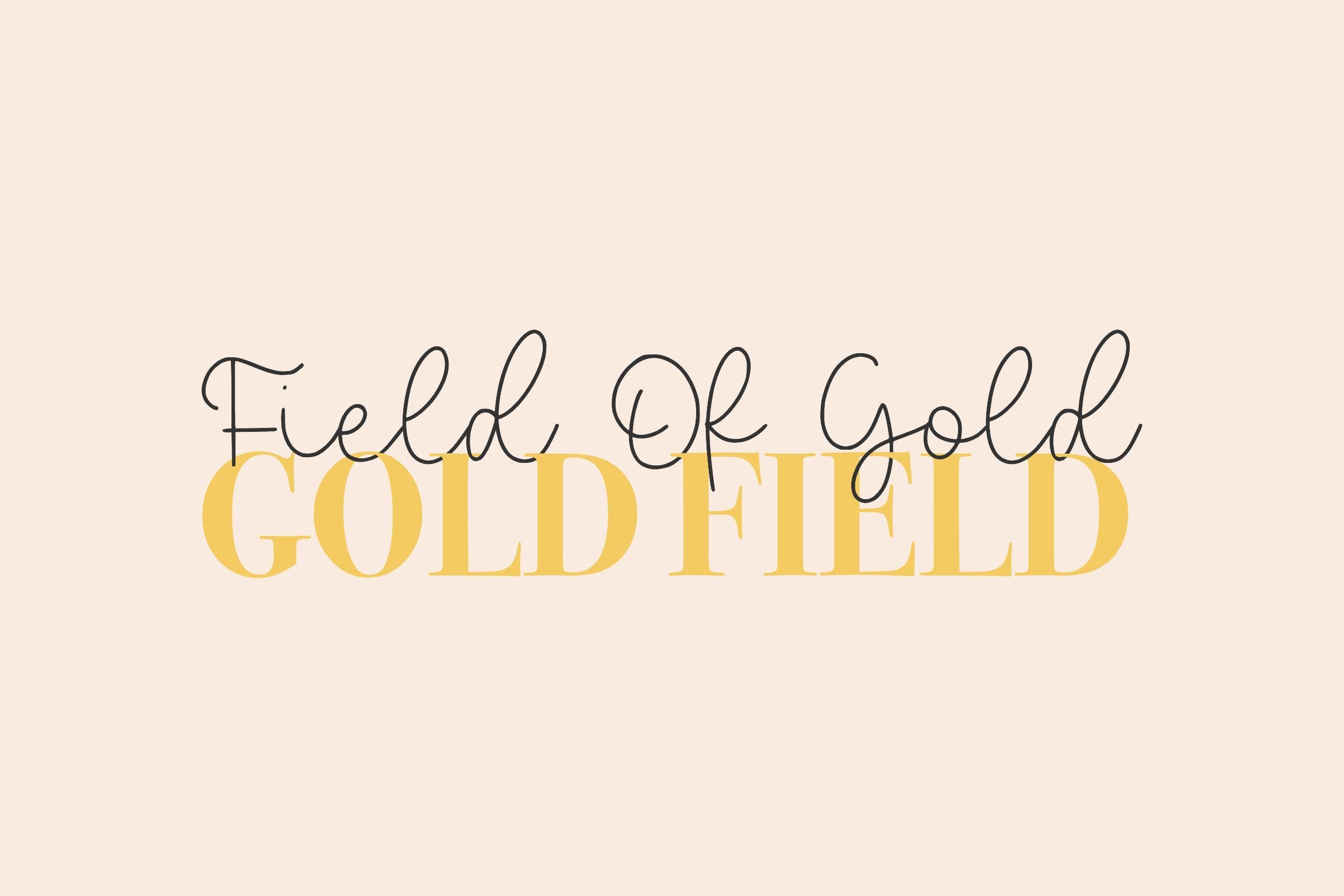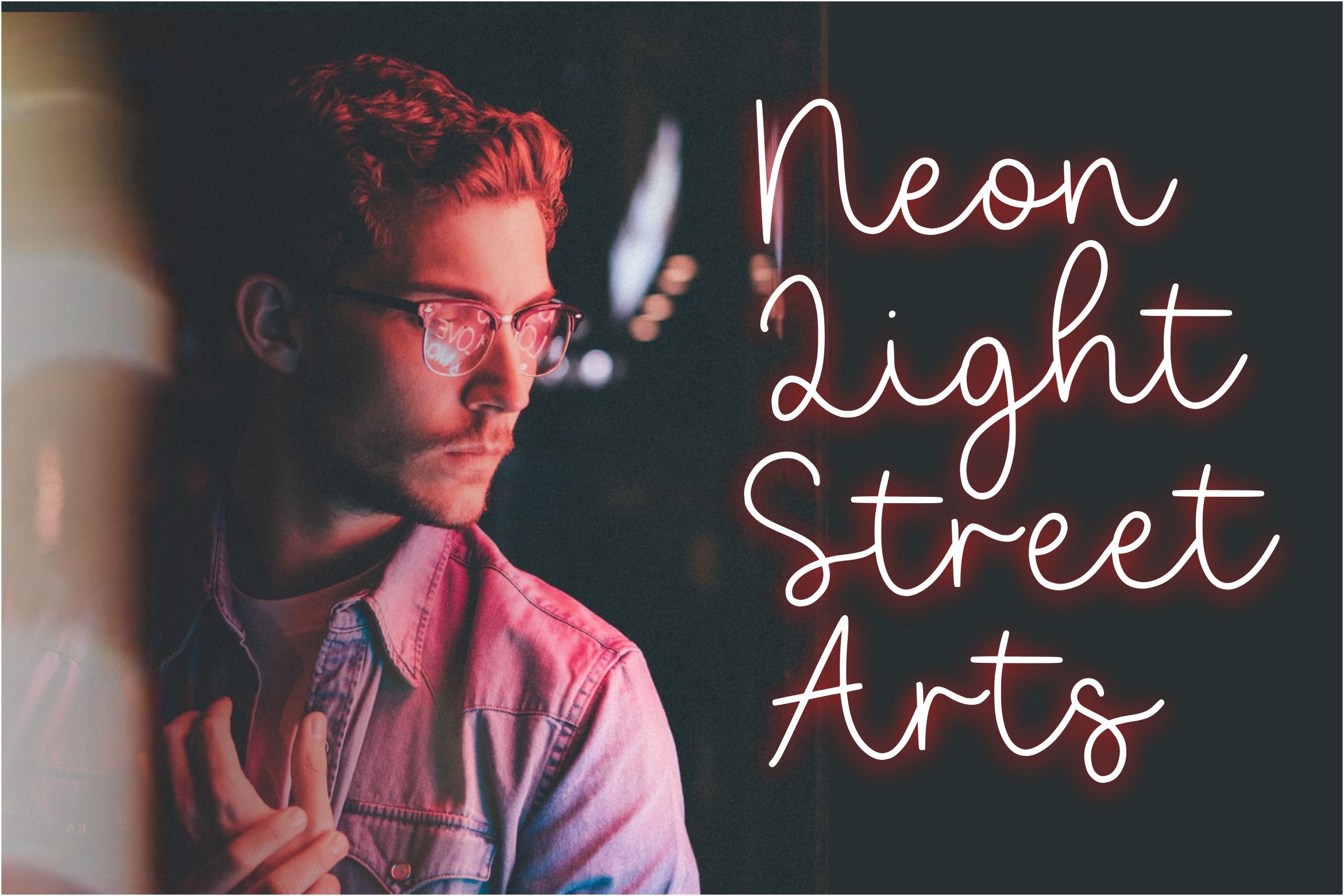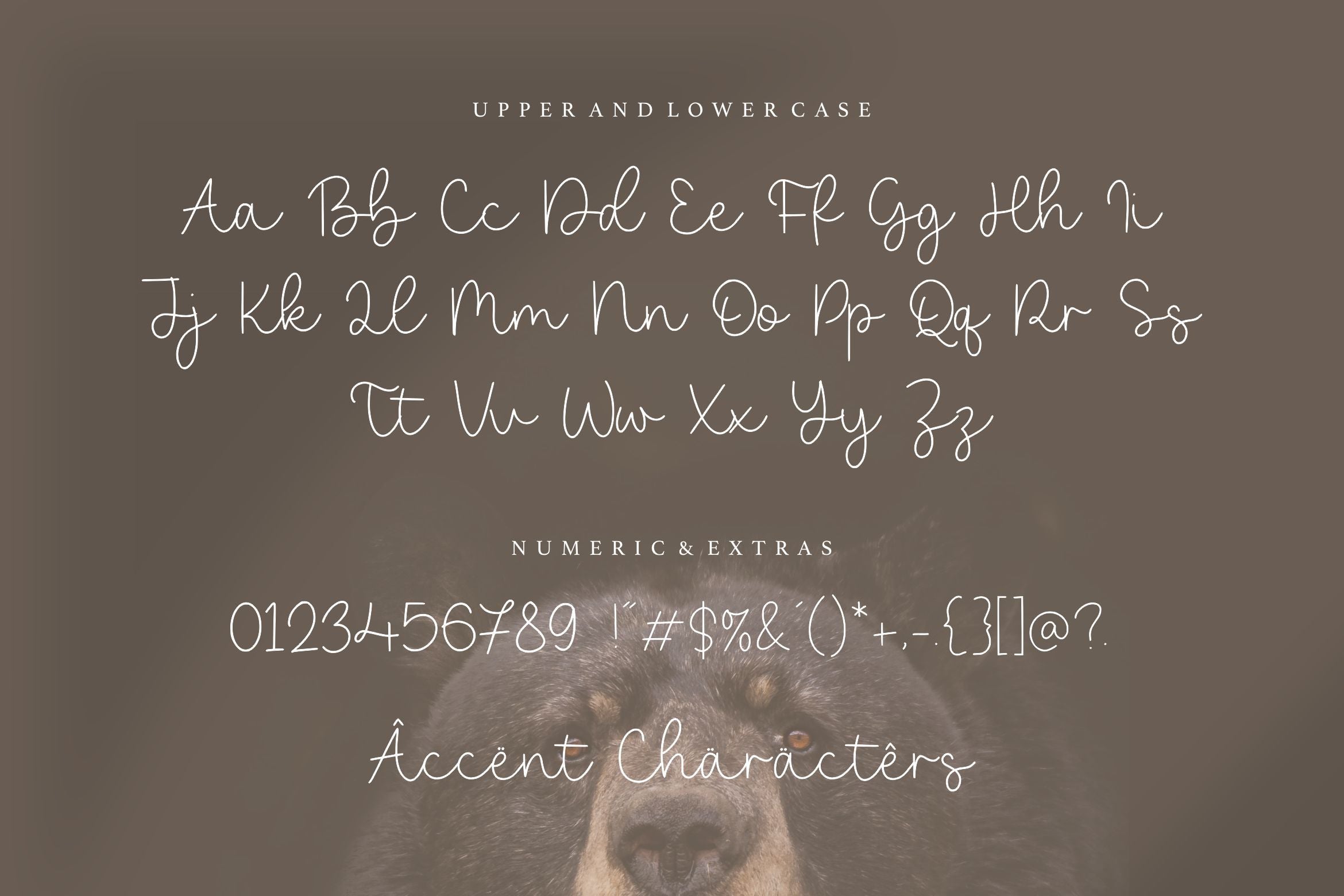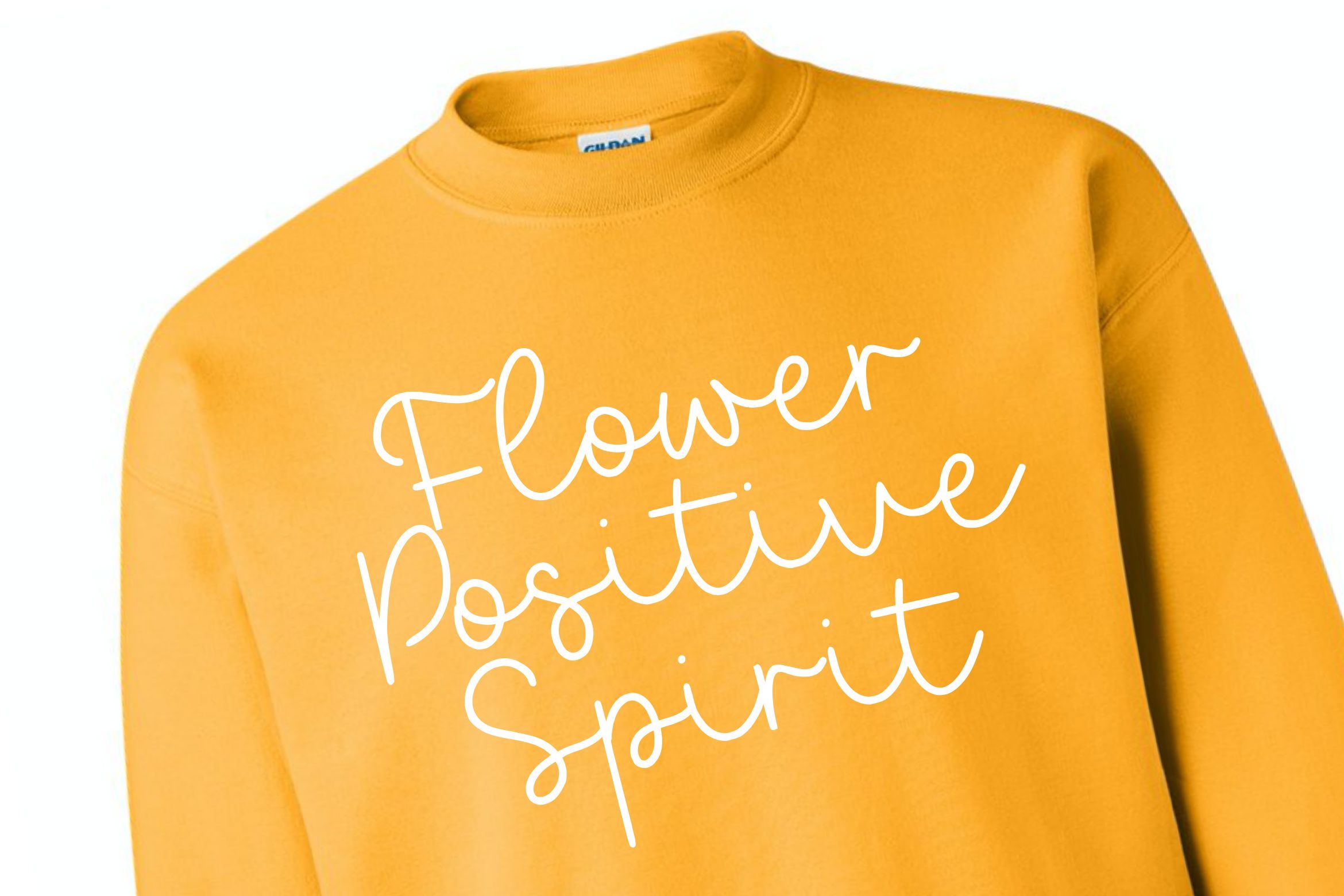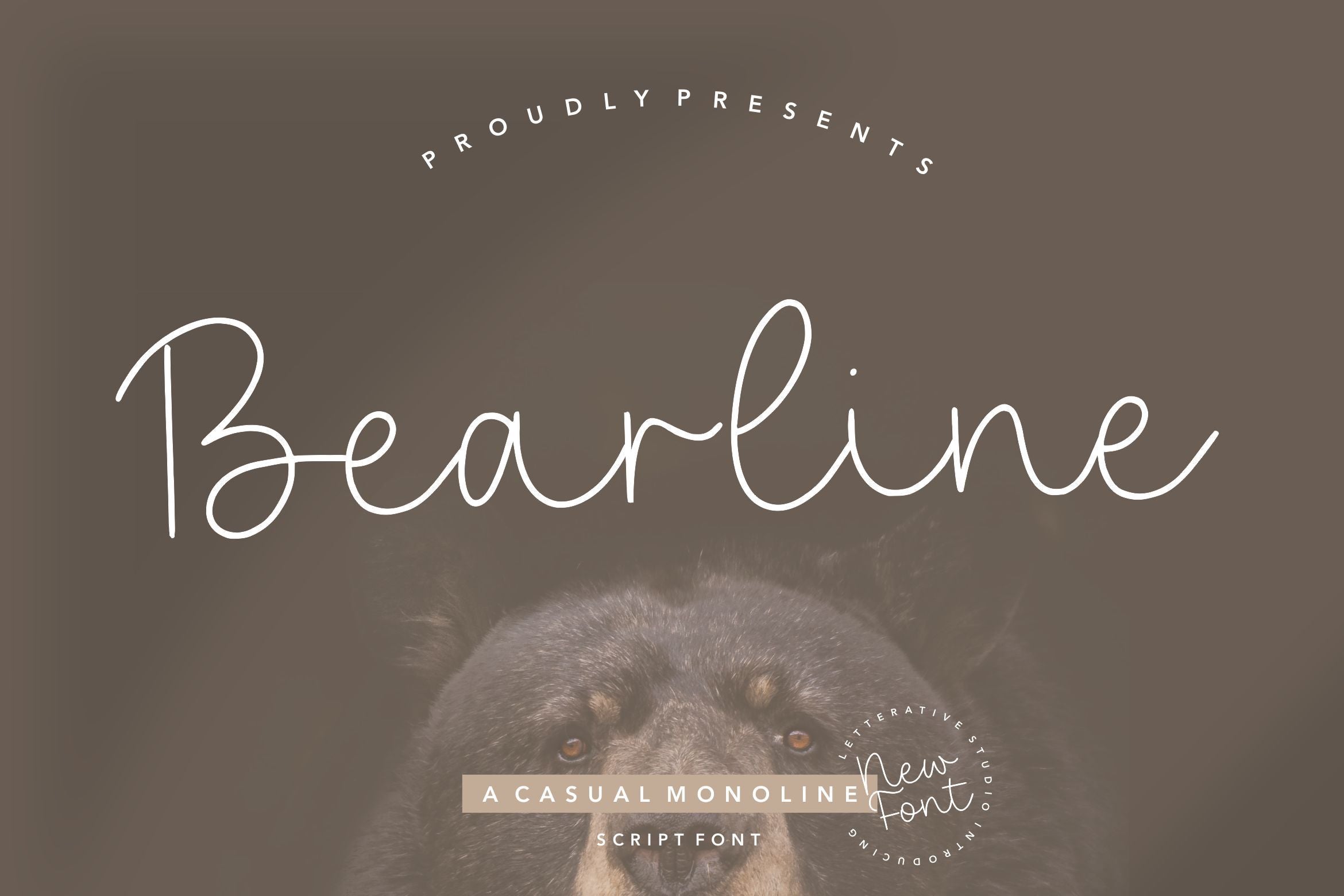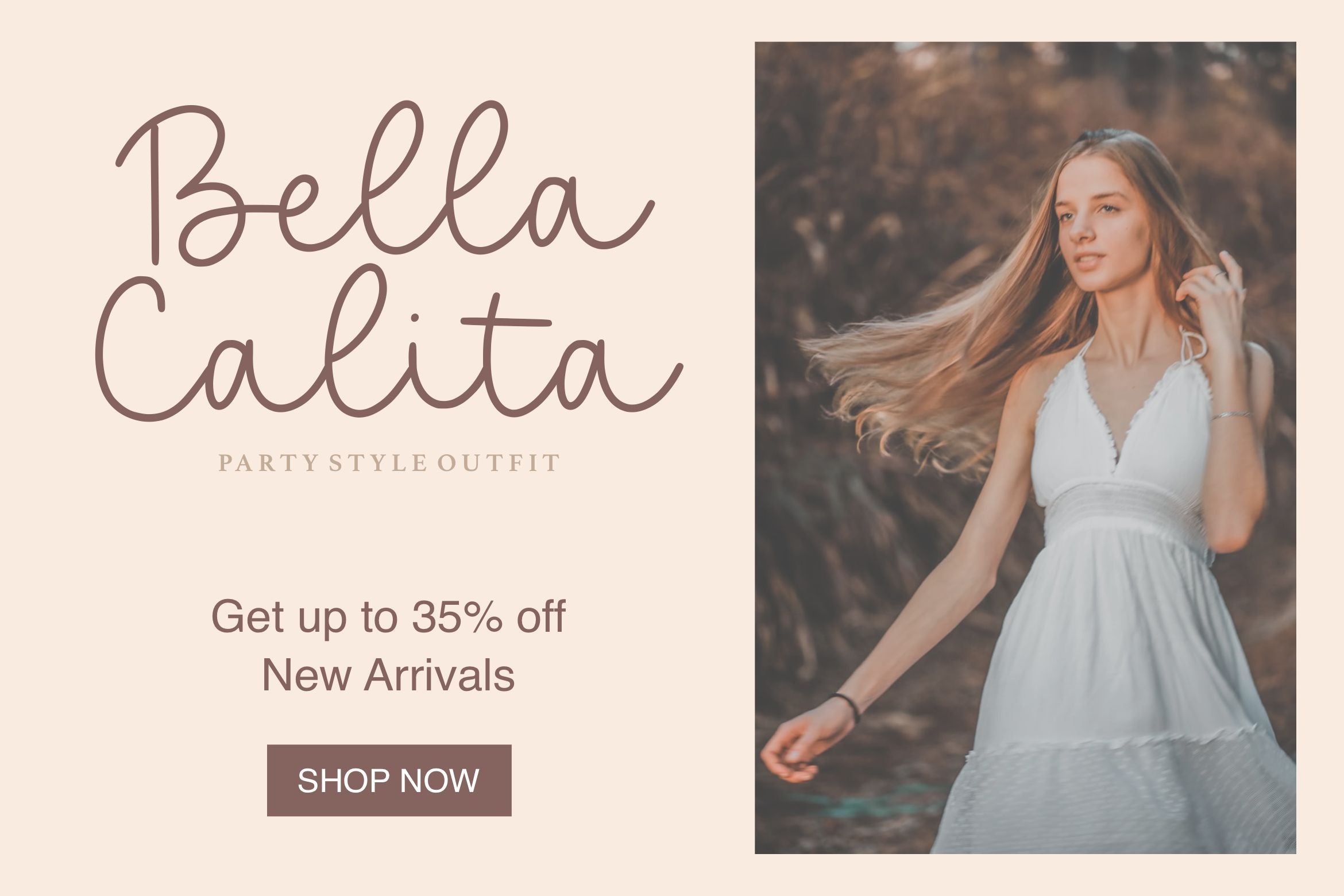
Bearline Casual Monoline Script Font
Introducing by Letterative Studio : Bearline Font Bearline is a Casual Monoline Script Font Bearline is a casual monoline script font. It maintains its classy calligraphic influences while feeling contemporary and fresh. This versatility will appeal to a wide range of crafty ideas, from letterheads and titles, to stationery. This font includes : TTF and OTF Bearline also multilingual support Enjoy the font! Feel free to comment or feedback Send me PM or email Thank you!